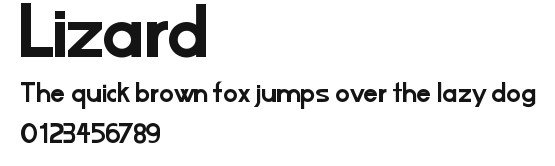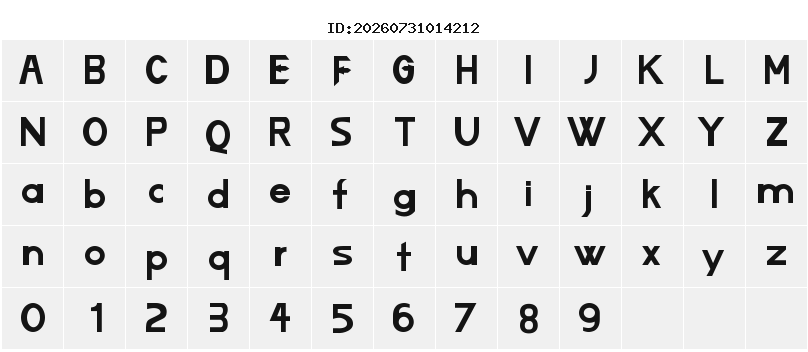
• Font Name: Lizard
Lizard.ttf is a modern, elegant sans-serif font designed for ultimate readability and visual harmony. Perfect for branding, headlines, web design, and print materials.